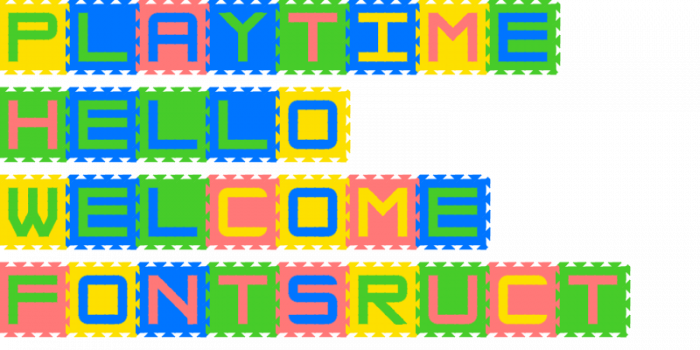
cute idea! i like it
Its like a Toy myself!
The most natural use of colors in a font. This might be my favorite of this competition.
Congratulations! FontStruct Staff have deemed your FontStruction worthy of special mention. “Playfully” is now a Top Pick.